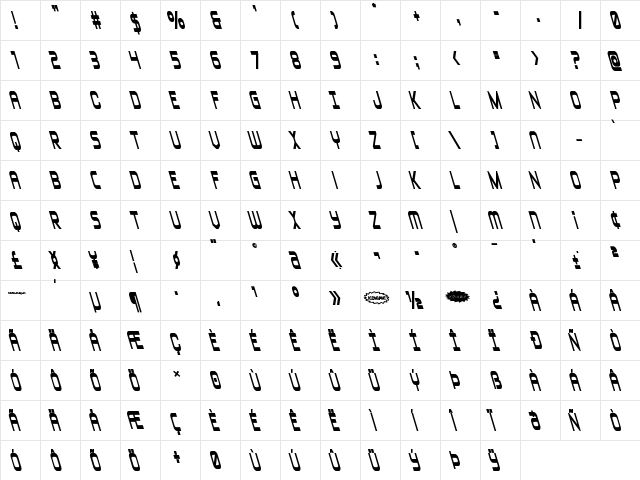
Blizzard Shaft Bold Leftalic Regular
Design Context for Blizzard Shaft Bold Leftalic Typeface
Blizzard Shaft Bold Leftalic is a composed and adaptable typeface that performs quietly and consistently across a wide range of design contexts. The slanted form adds forward momentum and visual energy. The heavy weight commands attention and anchors typographic hierarchies.
Pro Tip: Use Blizzard Shaft Bold Leftalic for emphasis, pull quotes, and subheadings where its slanted energy can add rhythm to the layout.